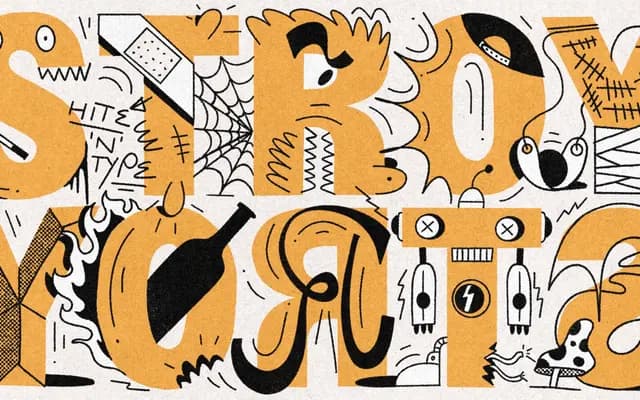
Stroy Grotesk
A 12-style grotesque sans from Hot Type spanning at least three weights with matching italics, available for desktop and web licensing.
Stroy Grotesk is a grotesque sans-serif offered in 12 styles, covering weights from Thin through to heavier cuts, each paired with an italic. The family is priced at €70 per style or €840 for the complete set, with trial fonts available via Fonstand. Its specimen suggests it performs across both display and text settings.
The name and specimen presentation indicate a grotesque sans-serif with a range of weights from Thin to heavier cuts, with matching italics throughout, typical of contemporary grotesque revivals.